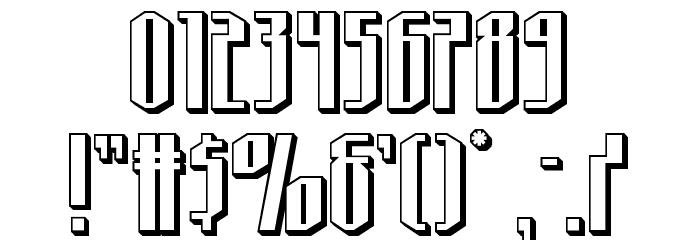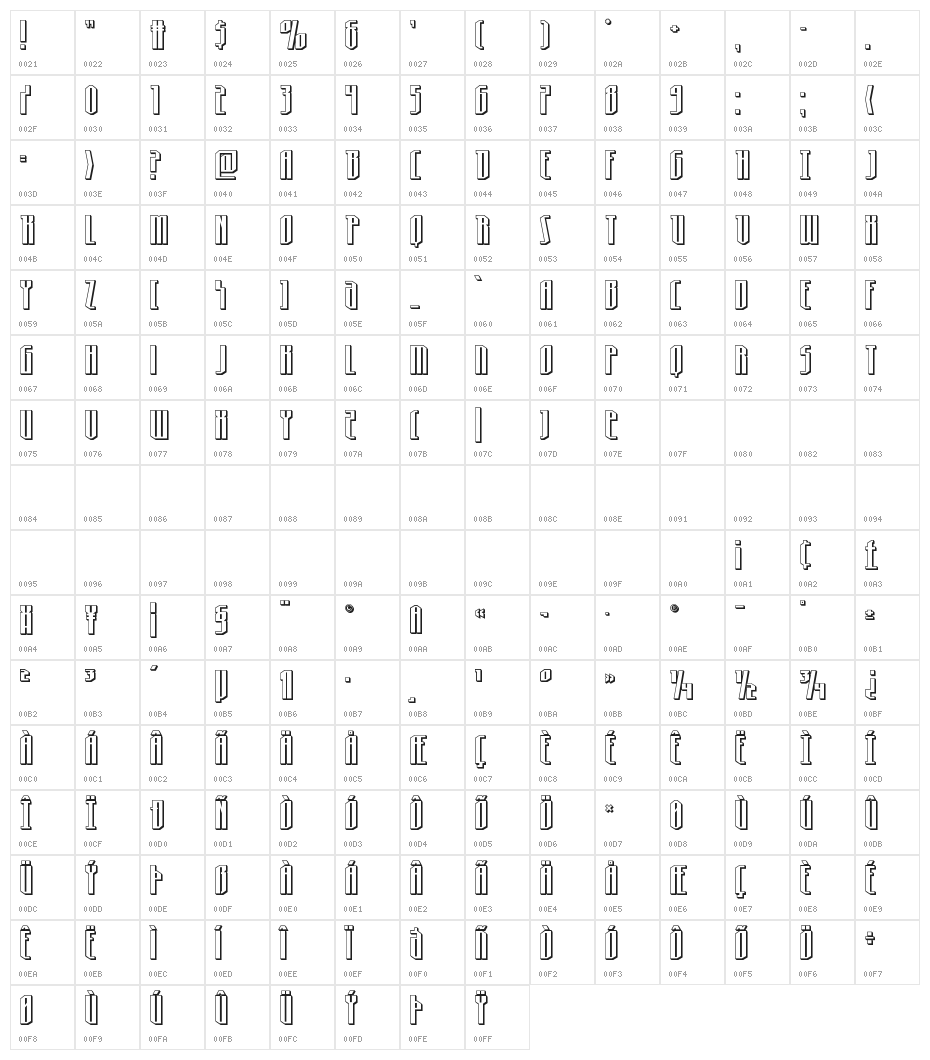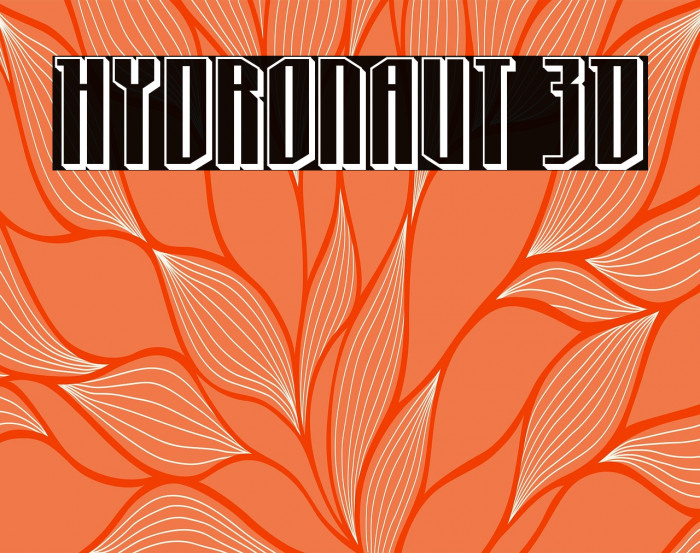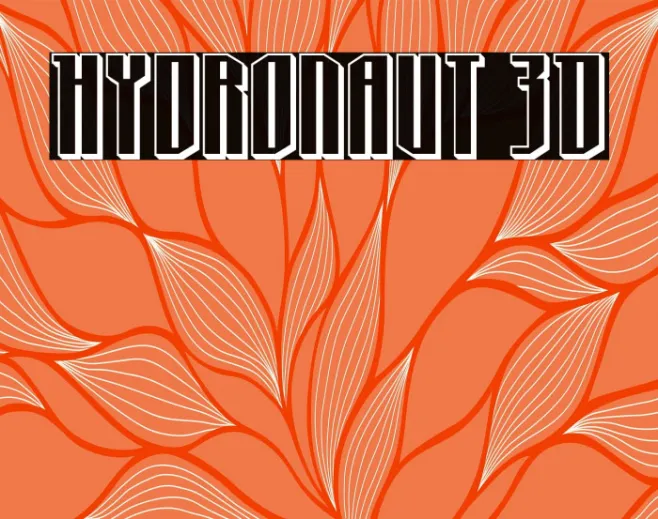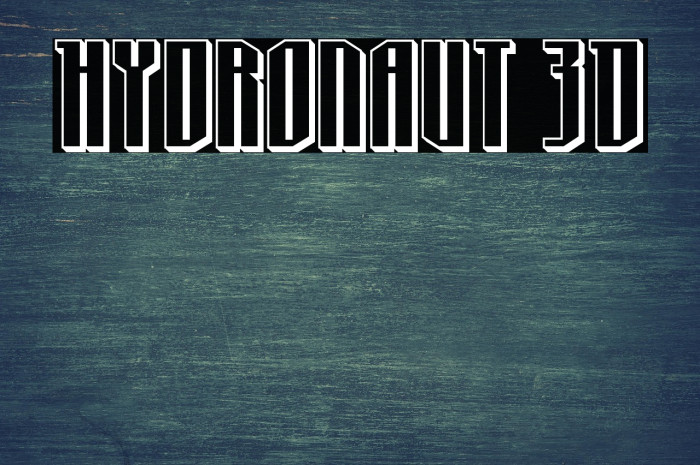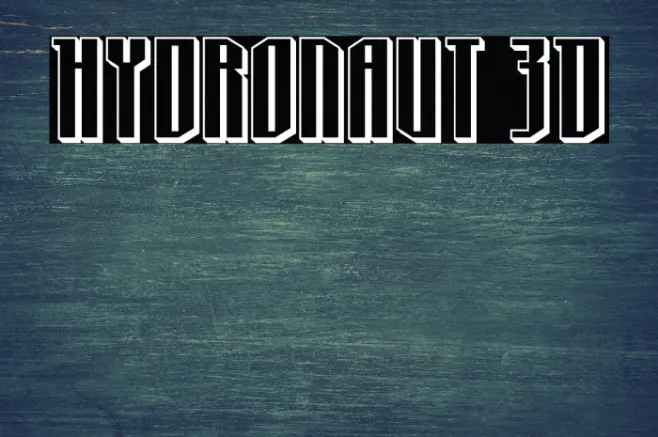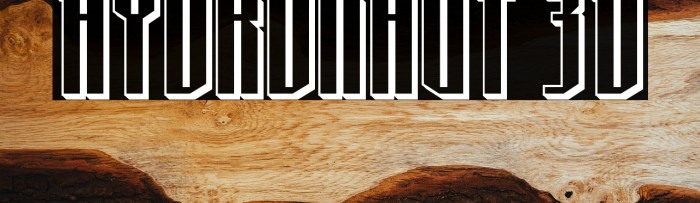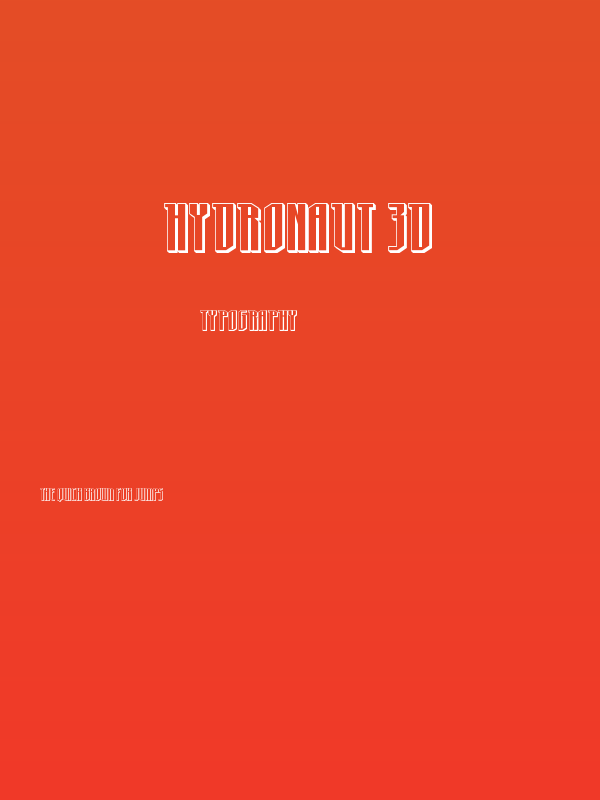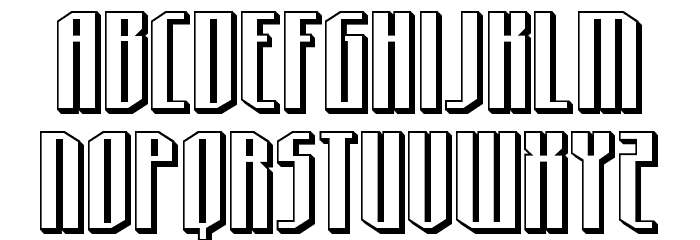
Hydronaut 3D Font
Hydronaut 3D Description
This font features a bold, three-dimensional appearance with a strong geometric structure. The characters are outlined with a shadow effect, giving them a distinct, blocky look that stands out. The uppercase letters are uniform in height, with sharp angles and clean lines, creating a sense of strength and stability. The numerals and special characters maintain this bold, structured style, ensuring consistency across all glyphs. This font's design is reminiscent of futuristic or industrial themes, making it ideal for projects that require a modern and impactful visual presence.